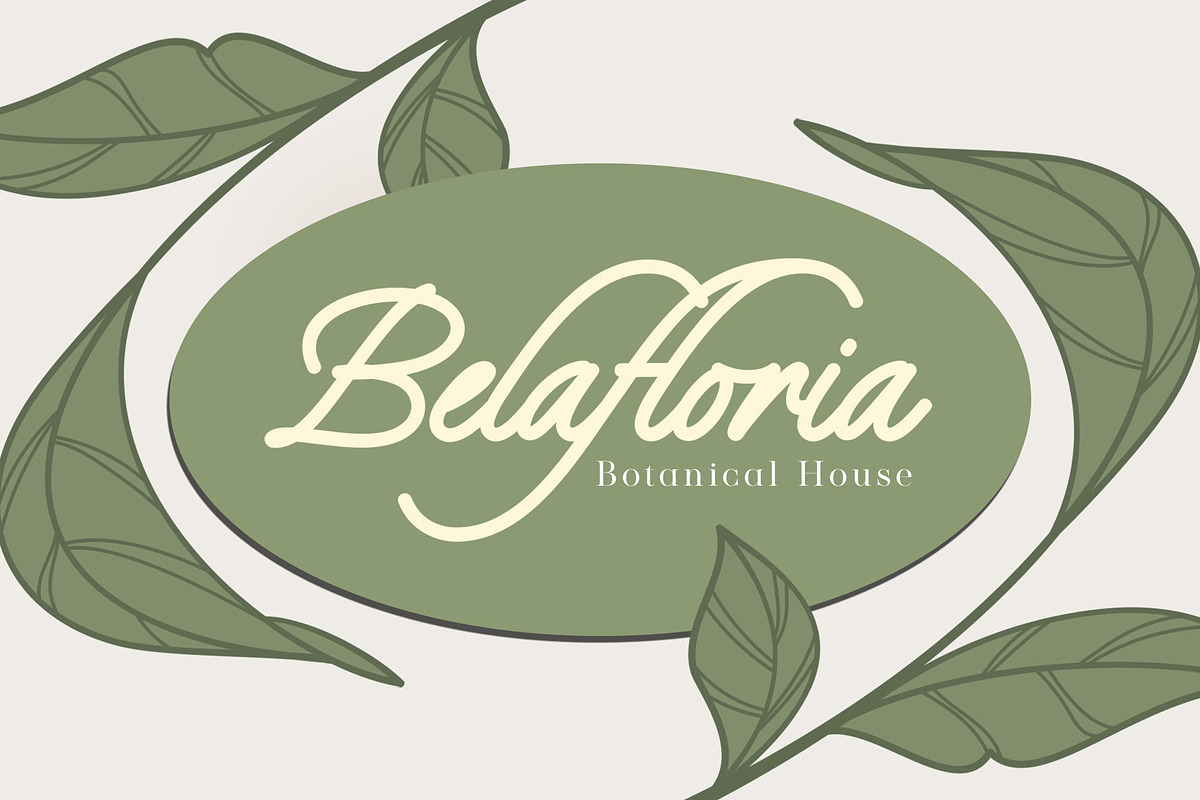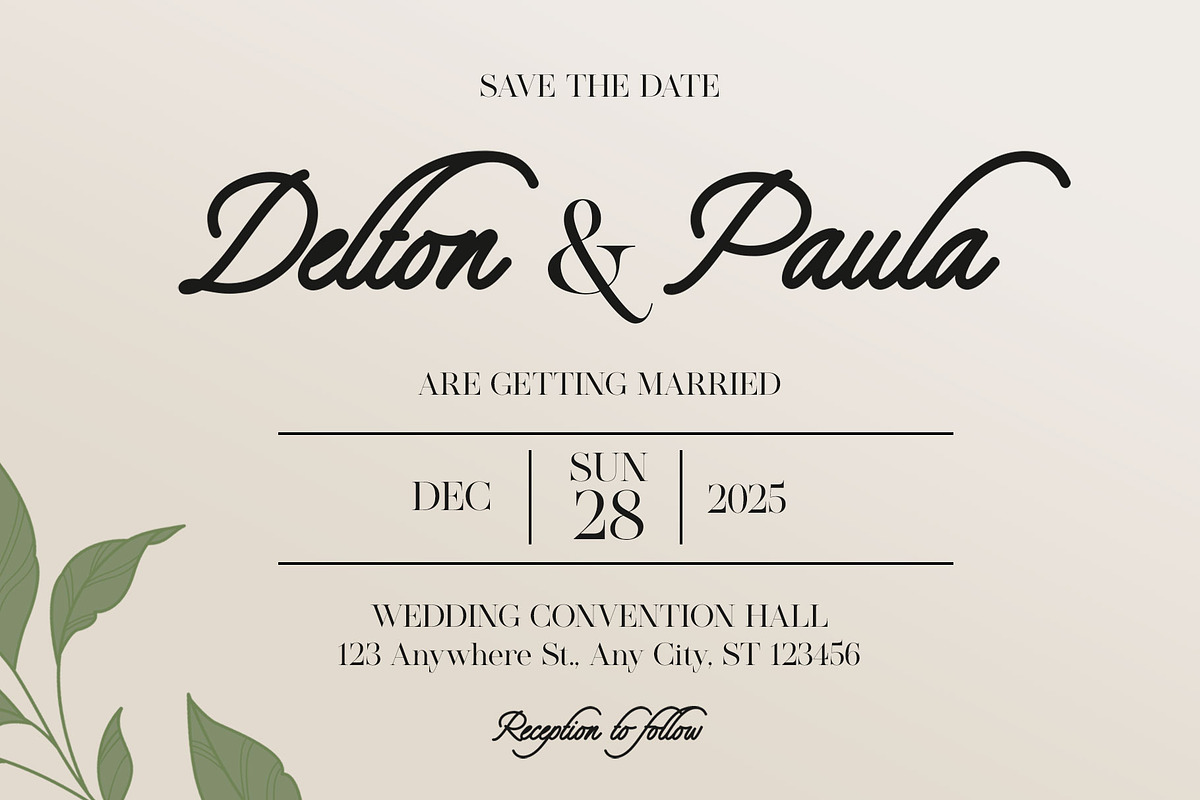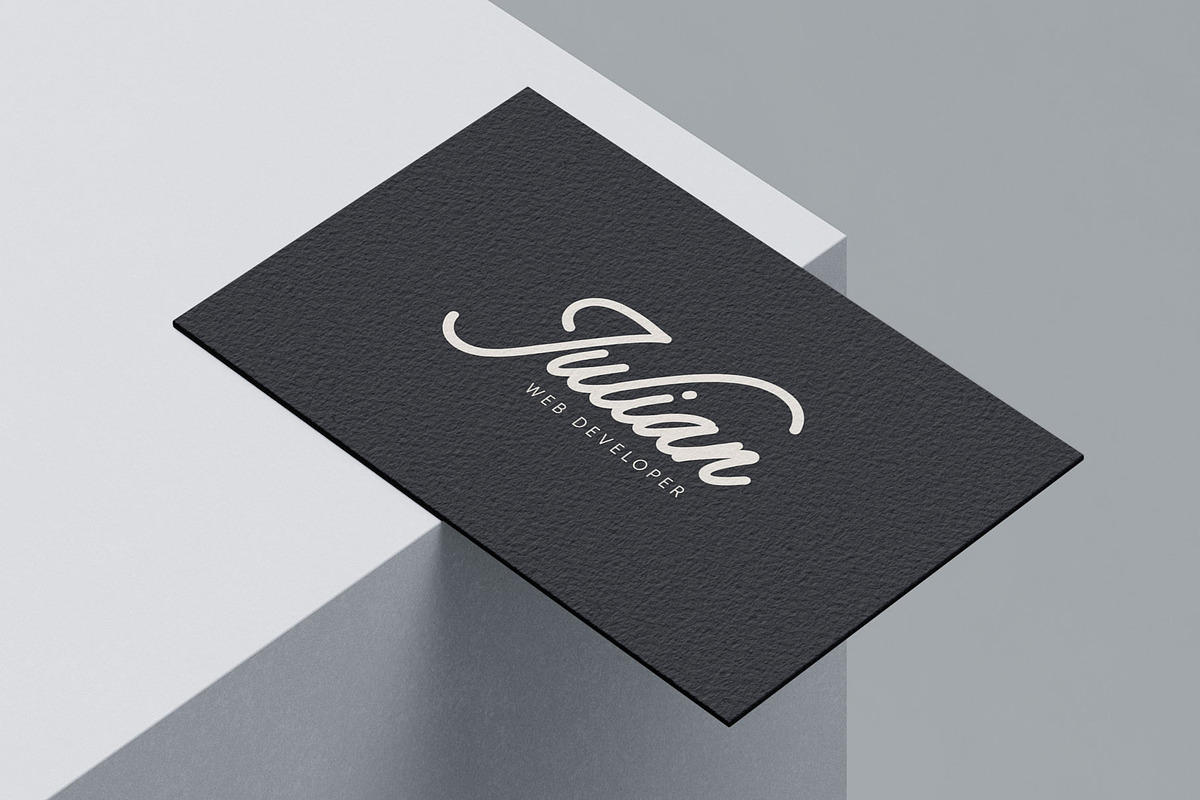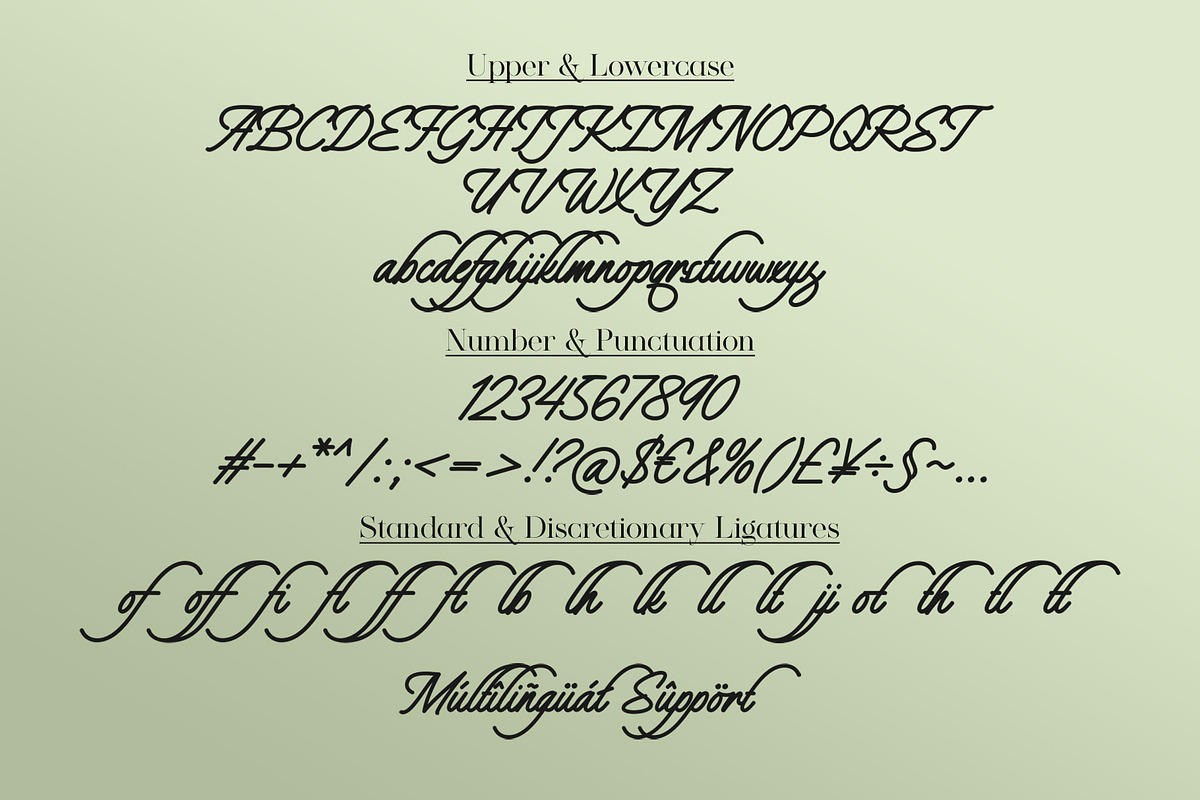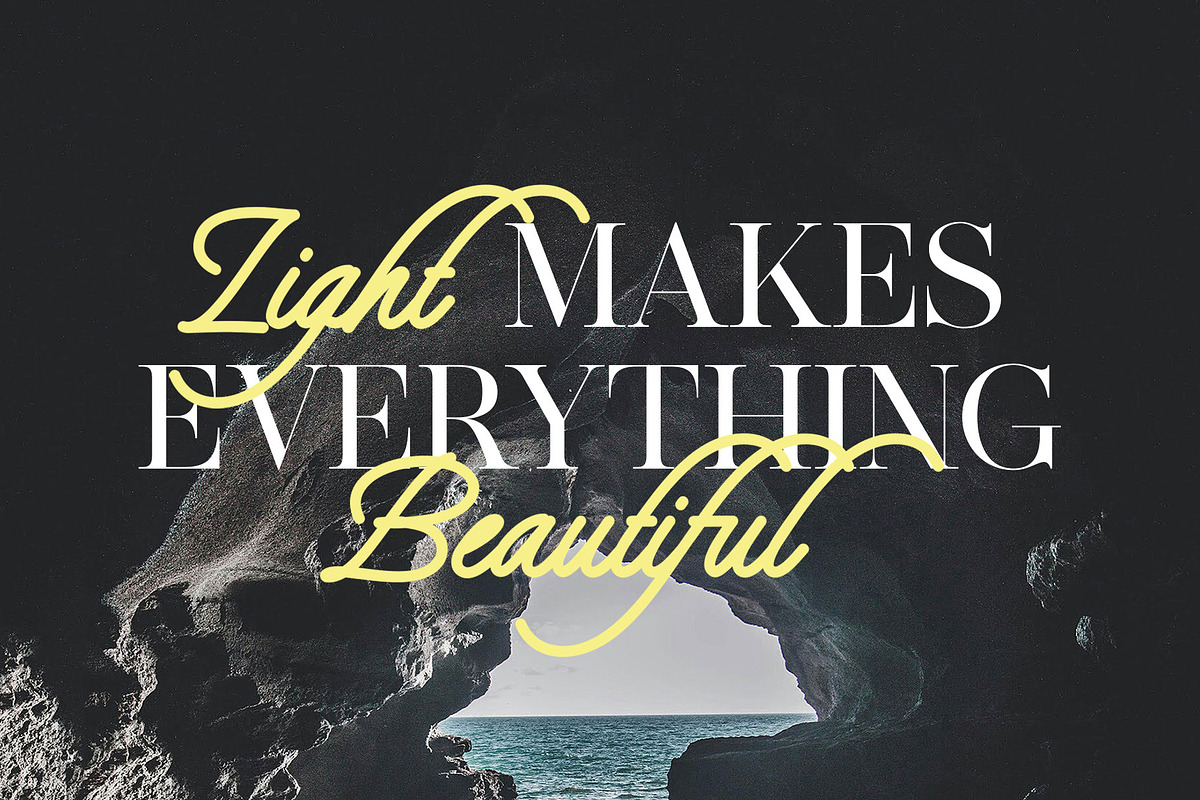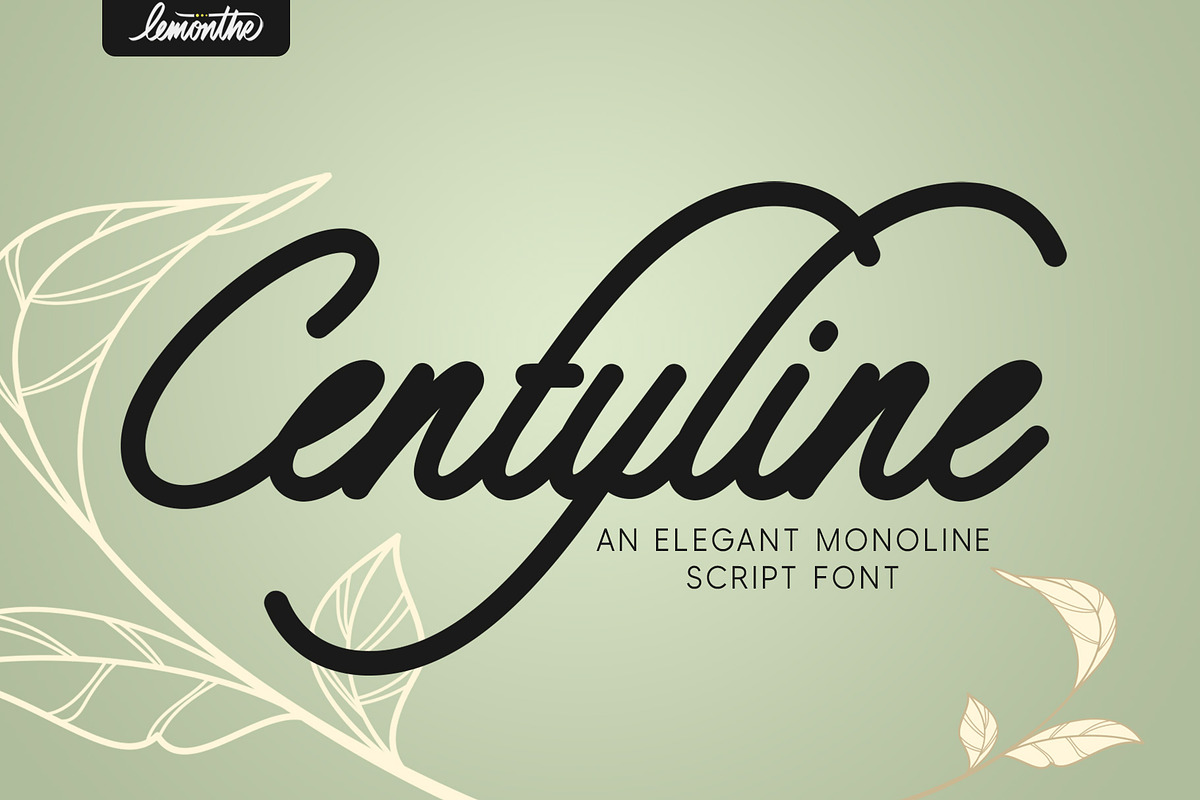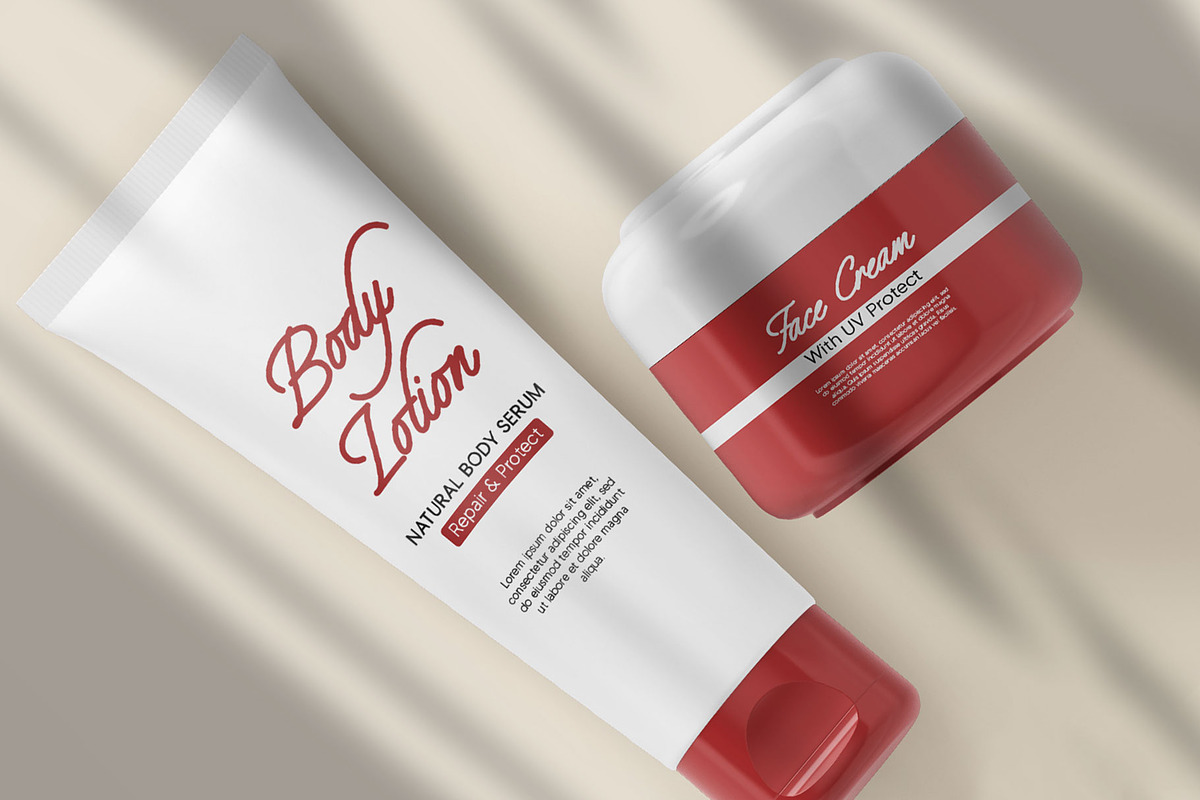
Centyline | Monoline Script
Centyline is a monoline script font with a clean and elegant design. With smooth and consistent strokes, this font is suitable for various design needs such as branding, logos, invitations, product packaging, and other creative projects. With a modern look yet easy to read, Centyline adds a professional and stylish touch to any design project.